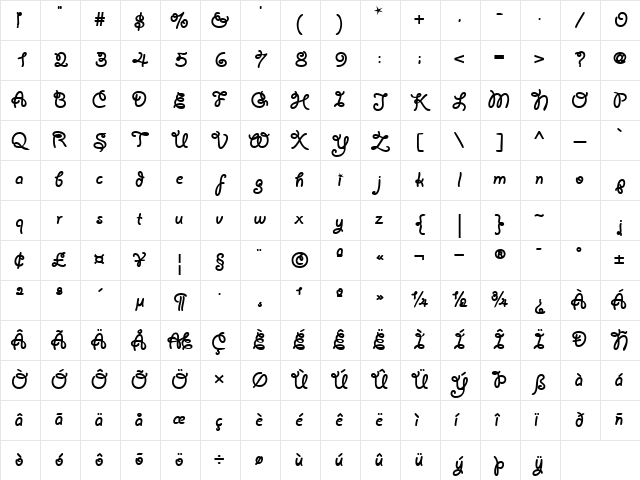
YaHooSSK Bold Free Font
YaHooSSK Bold
Design Context for YaHooSSK
YaHooSSK is a composed and adaptable typeface that performs quietly and consistently across a wide range of design contexts. Its bold stroke weight gives it real presence on the page.